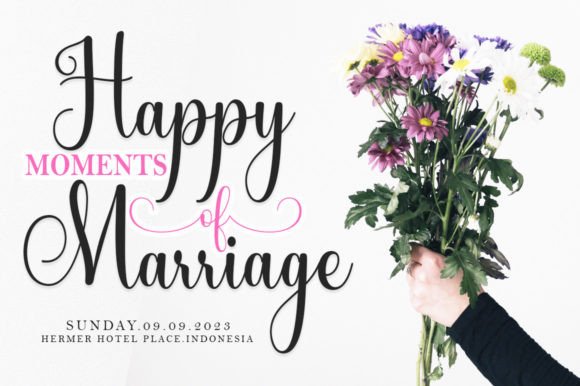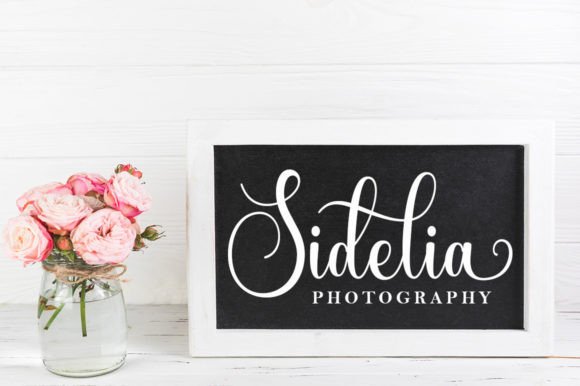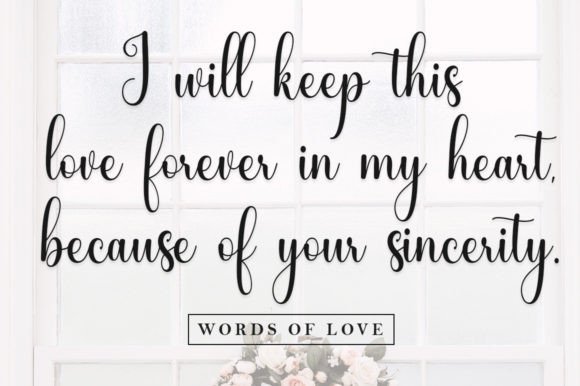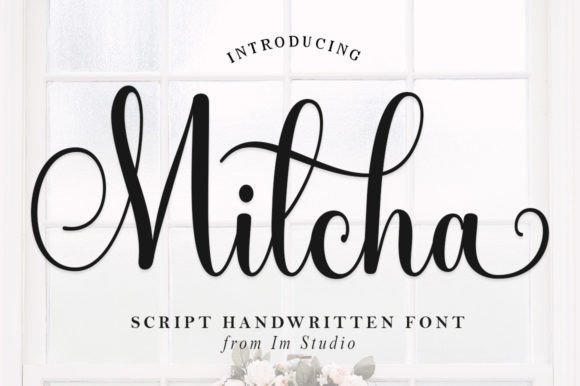
Introduction to Milcha Font
Milcha is a stylish and incredibly elegant handwritten font.
It looks stunning on wedding invitations, thank you cards, quotes, greeting cards, logos, business cards, and every other design which needs a handwritten touch This font is PUA encoded which means you can access all of the glyphs and alternates with ease.